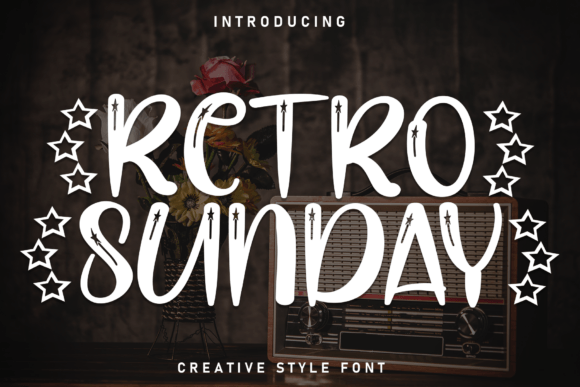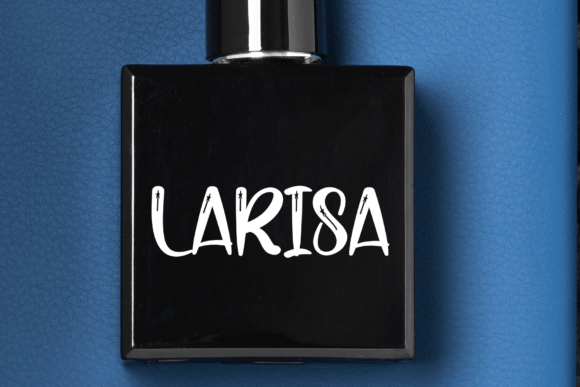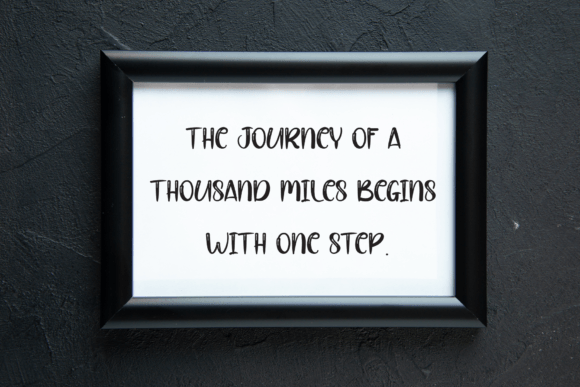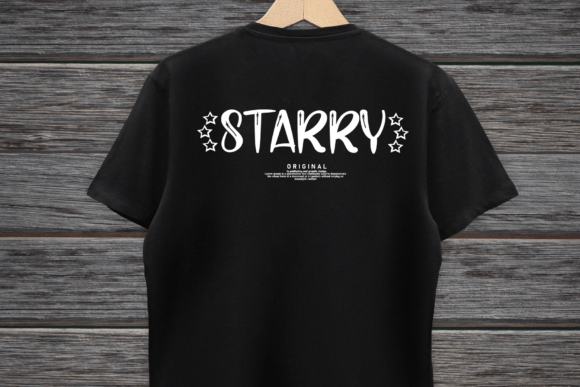
Retro Sunday Font: Groovy Display Font for Playful Designs
About the Retro Sunday Font
From logos to headlines, the Retro Sunday Font is the perfect choice for making a lasting impression. Introducing an adorable and approachable handcrafted display font, designed to add charisma to your creations. Perfect for penning soulful wedding invitations or creating heartwarming cards, this font sprinkles a delightful touch onto any design, infusing it with an element of playful charm. With its neat handwriting aesthetic, it’s designed to captivate while remaining enjoyable and exciting, the perfect companion for all delightful design adventures.
Retro Sunday excels as a display font for headlines, short titles, and logos where its handcrafted charm shines. It’s ideal for branding projects aiming for a vintage, friendly aesthetic, particularly in food, beverage, or lifestyle sectors. Avoid using it for large blocks of body text or UI elements; its playful nature and slightly irregular letterforms are less legible at smaller sizes.
Pairing Retro Sunday with a clean sans-serif like Open Sans for body copy creates a strong contrast, balancing its informal feel. For a more vintage-inspired look, consider a classic serif like Garamond or a slightly more geometric sans-serif like Montserrat. Scripts like Great Vibes could work for secondary text, but ensure readability remains a priority.
The font’s overall personality is undeniably friendly and approachable, conveying warmth and nostalgia. Its slightly imperfect forms add to its handcrafted appeal, making it perfect for projects needing a touch of charming, vintage-inspired character.
Retro Sunday Font Usage Examples
Retro Sunday Font Example